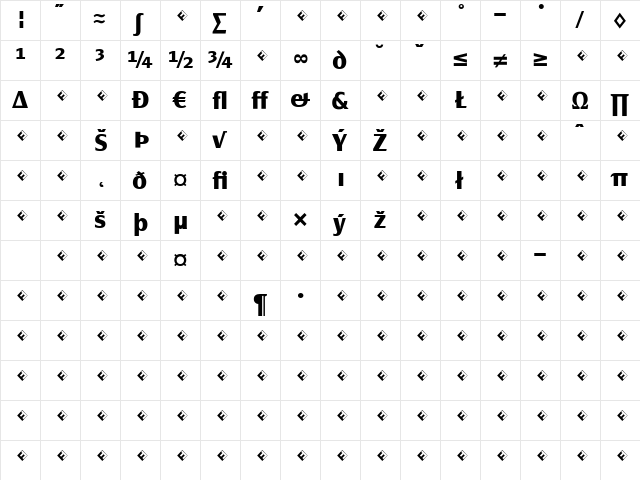
PageSans-BoldExpert Regular
| Foundry | Albert Boton, published by FontShop International for the FontFont Library |
| Designer | Albert Boton |
Design Context for PageSans-BoldExpert Typeface
PageSans-BoldExpert is a composed and adaptable typeface that performs quietly and consistently across a wide range of design contexts. The heavy weight commands attention and anchors typographic hierarchies.